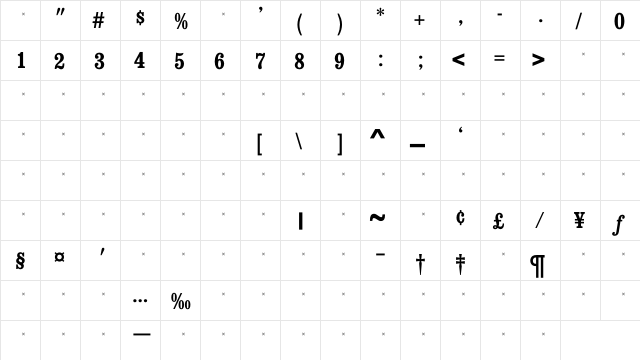
ConsortBoldCondensedTab Regular
Design Context for ConsortBoldCondensedTab Typeface
ConsortBoldCondensedTab is a composed and adaptable typeface that performs quietly and consistently across a wide range of design contexts. Its bold stroke weight gives it real presence on the page. Its narrow stance lets it pack a punch even in space-constrained designs.